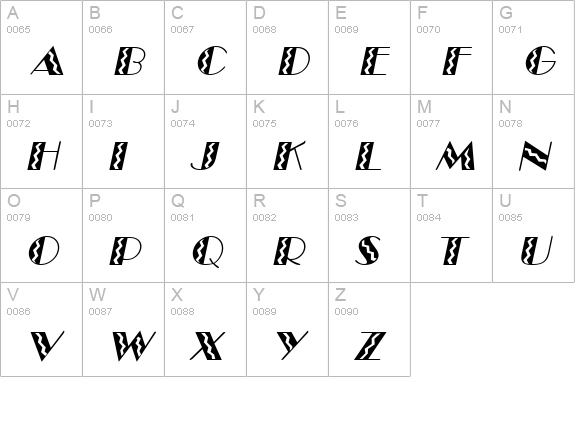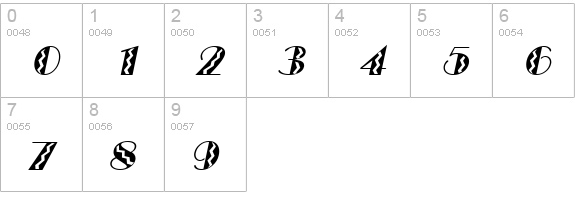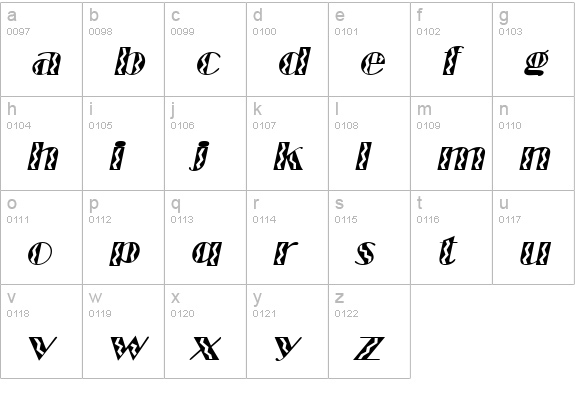
MarqueeFlash Italic Font Details
MarqueeFlash Italic is a distinctive, italic variant in the MarqueeFlash typeface family \xE2\x80\x94 well suited to design and typography projects.
MarqueeFlash Italic is a captivating and dynamic font that brings a touch of excitement and elegance to any design project. Its unique italic style adds a sense of movement, making it perfect for attention-grabbing headlines, eye-catching banners, and stylish logos. With its sleek and modern design, MarqueeFlash Italic stands out from the crowd, making a bold statement wherever it is used. This font exudes confidence and sophistication, making it an excellent choice for projects that require a touch of glamour and class. Not only does MarqueeFlash Italic offer stunning aesthetics, but it also provides excellent legibility, ensuring that your message is conveyed clearly and effectively. Its carefully crafted letterforms are easy on the eyes, making reading a pleasure for your audience. The best part? MarqueeFlash Italic is completely free! You can easily download this fantastic font at FontsMarket.com, a reputable source for high-quality fonts. With just a few clicks, you can bring this captivating typeface into your design arsenal, without spending a dime. So why wait? Add a touch of sophistication and allure to your designs with MarqueeFlash Italic. Download it today at FontsMarket.com and unleash your creativity without any cost.